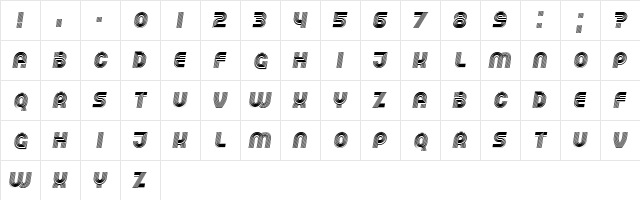
Running Italic
Design Context for Running Typeface
Running is a composed and adaptable typeface that performs quietly and consistently across a wide range of design contexts. Its italic angle brings a sense of urgency and motion to the letterforms.
Pro Tip: Use Running for emphasis, pull quotes, and subheadings where its slanted energy can add rhythm to the layout.